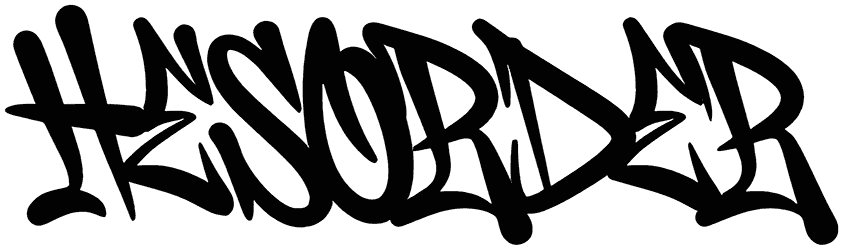
Hesorder Font
Shine in your graffiti projects with an urban font like Hesorder and see how much fun you’ve been missing so far. There’s nothing you can’t do with the playfully written letters of it in your designs.
Throw this wild graffiti font on your creative website banners, posters, streetwear, and skateboards to get something exciting out of it. Even though it’s all capitals, Hesorder still does one hell of a job connecting with the audience and getting them in the mood.